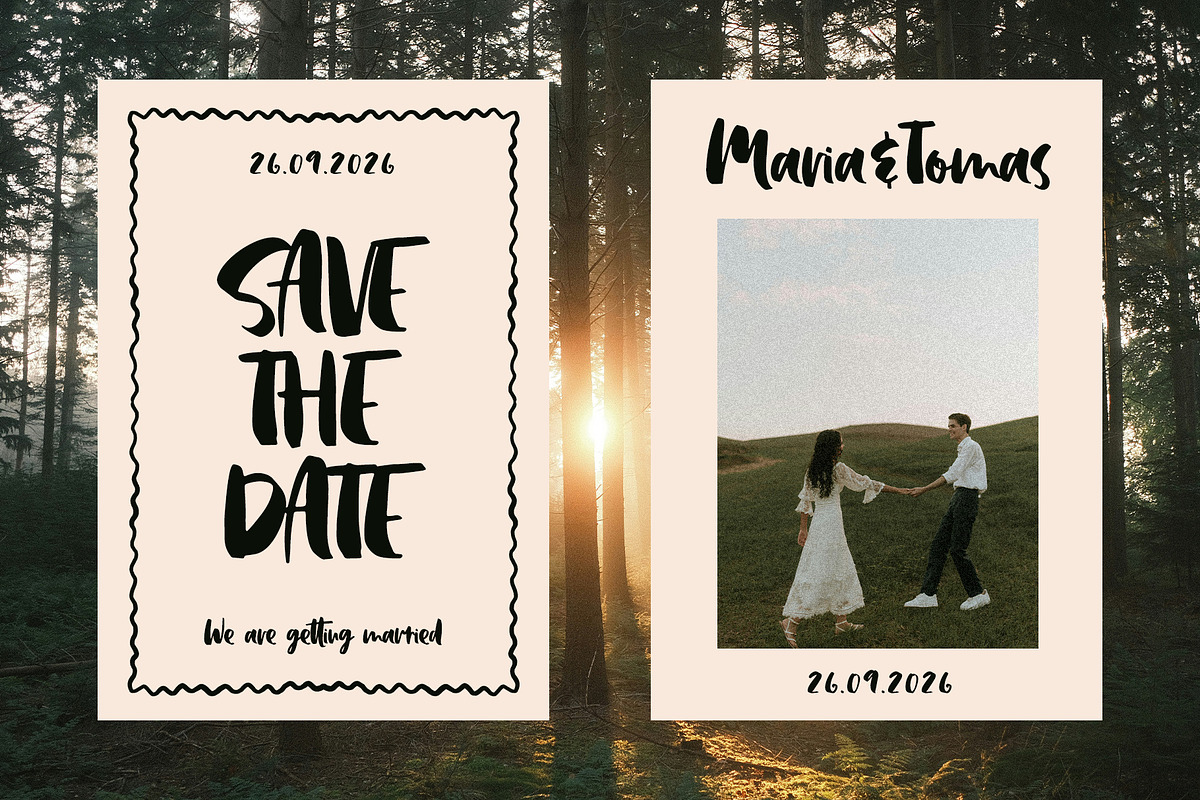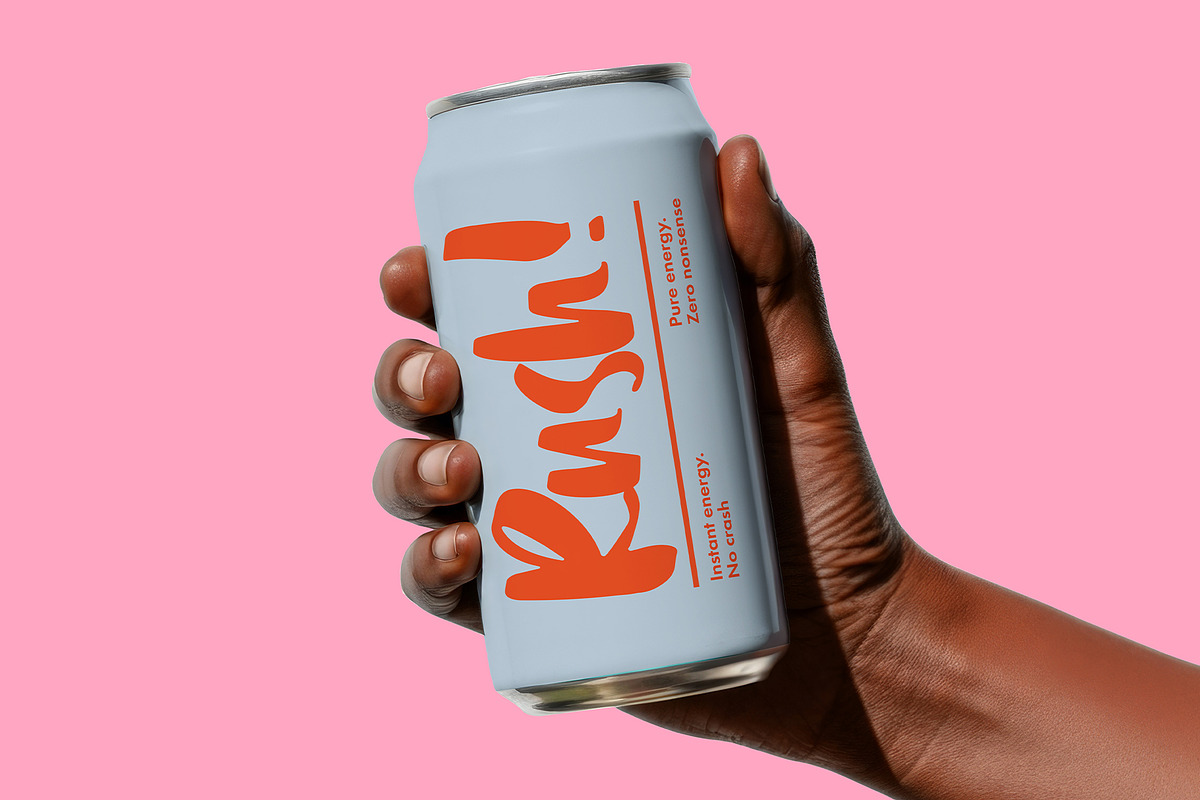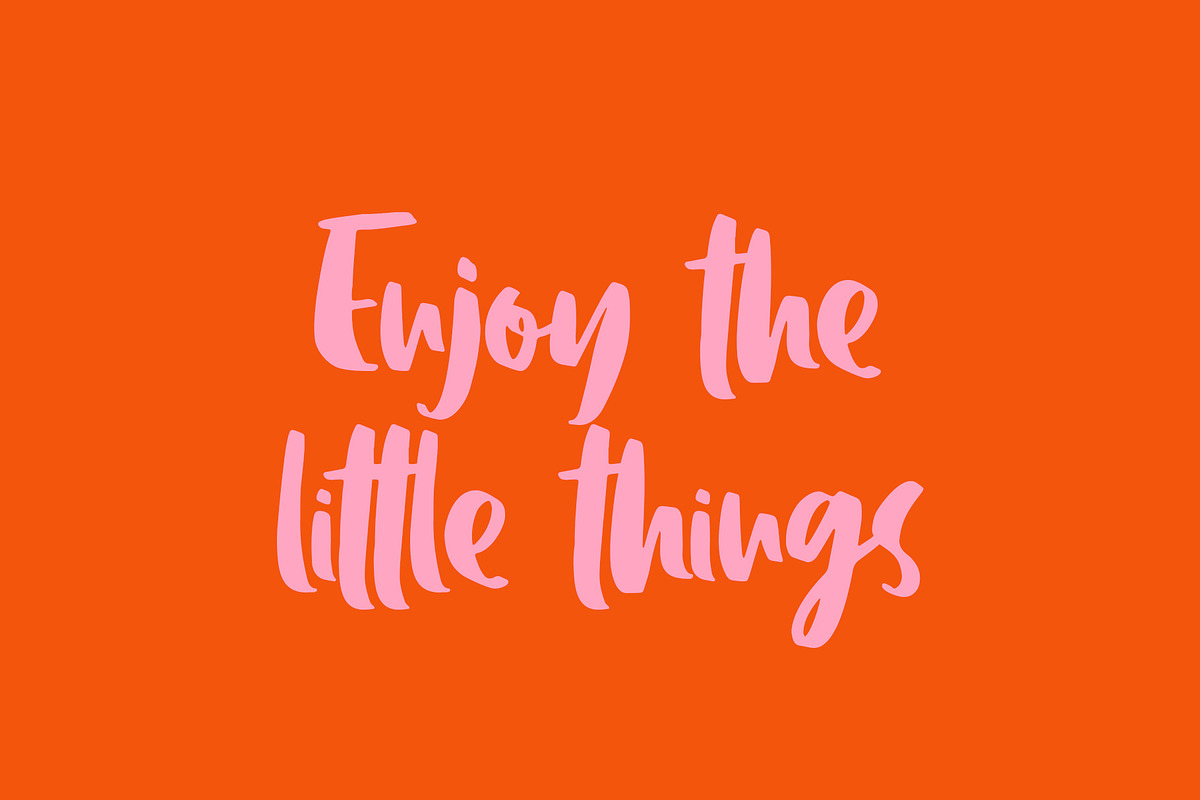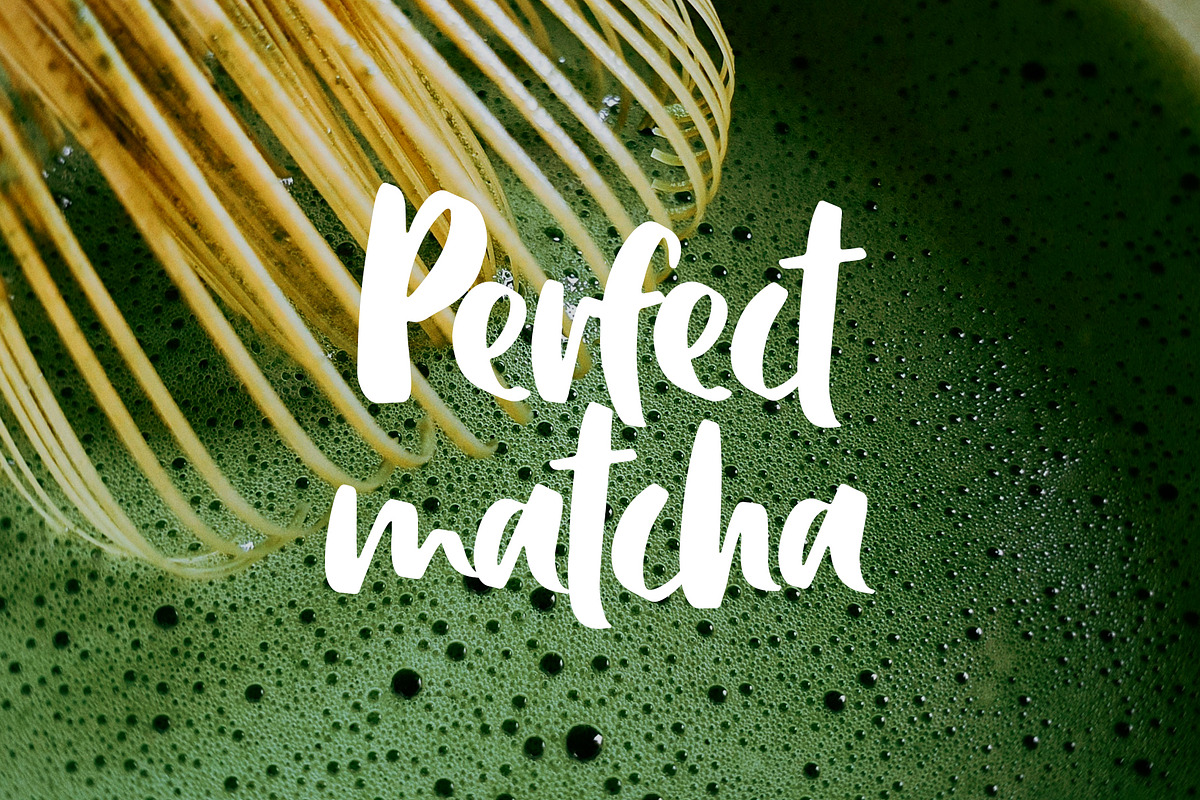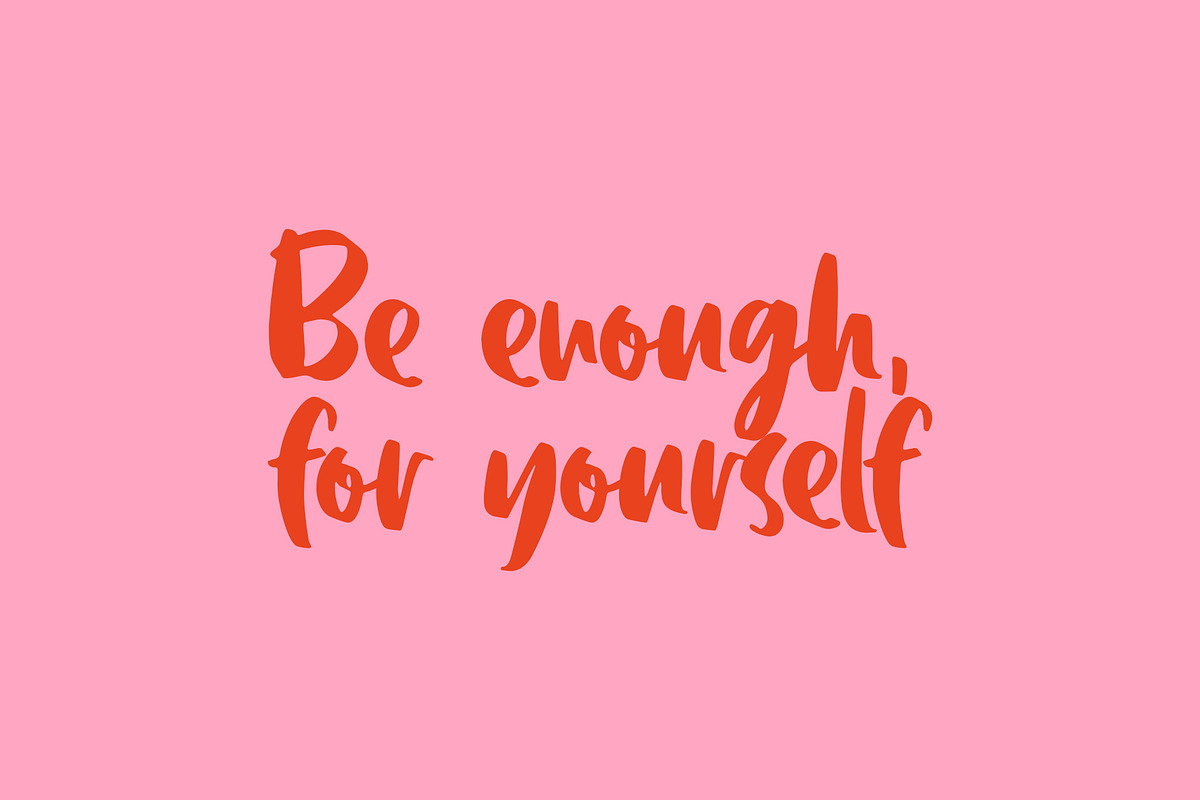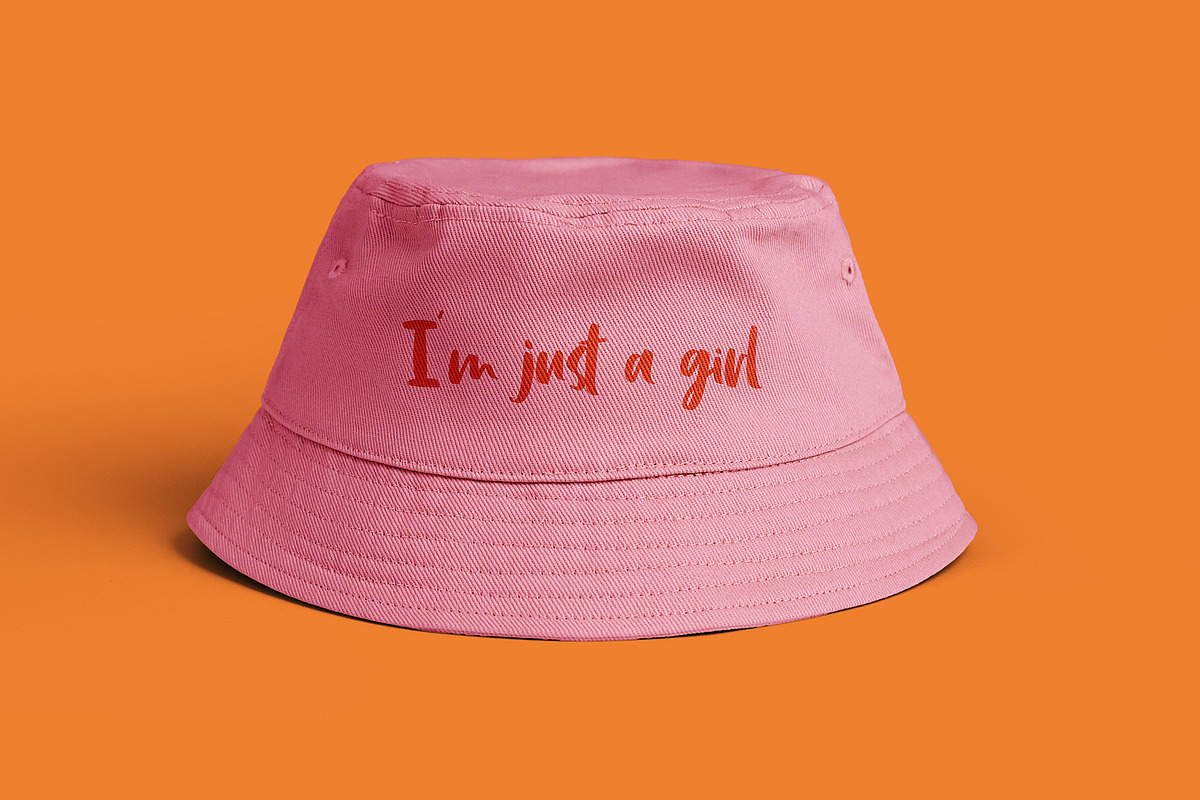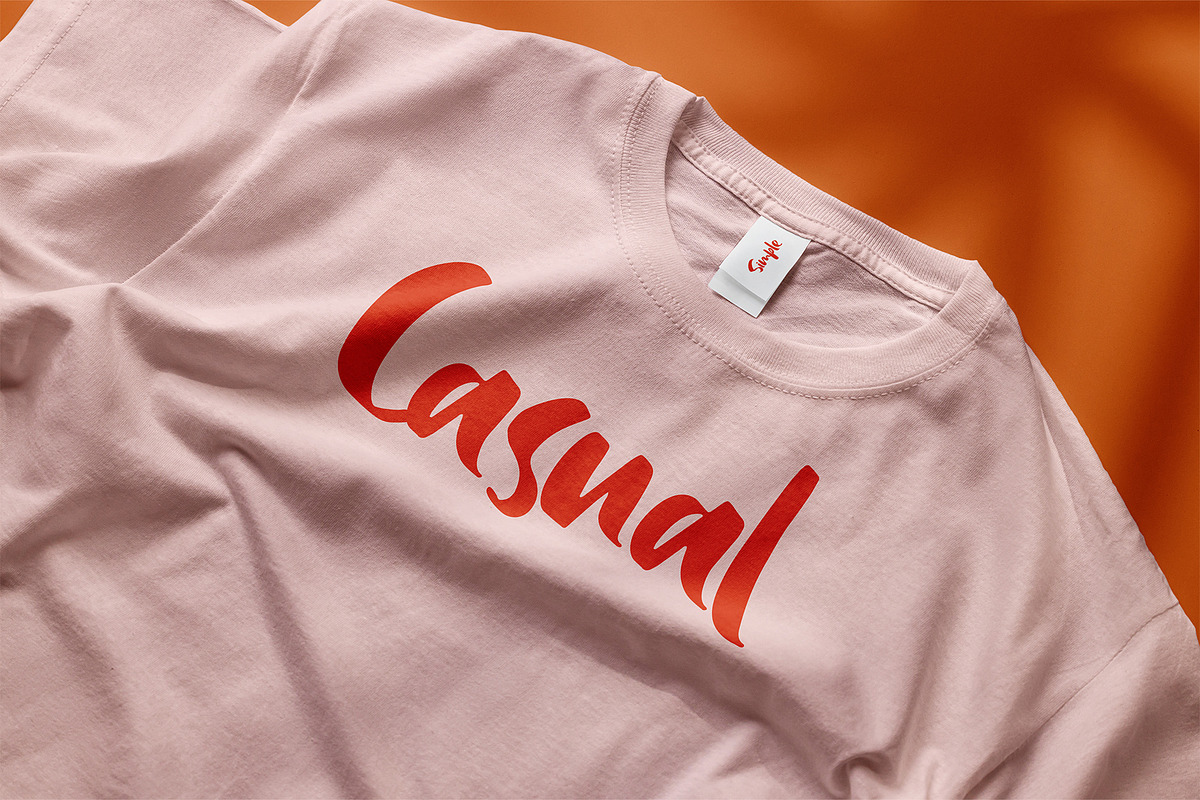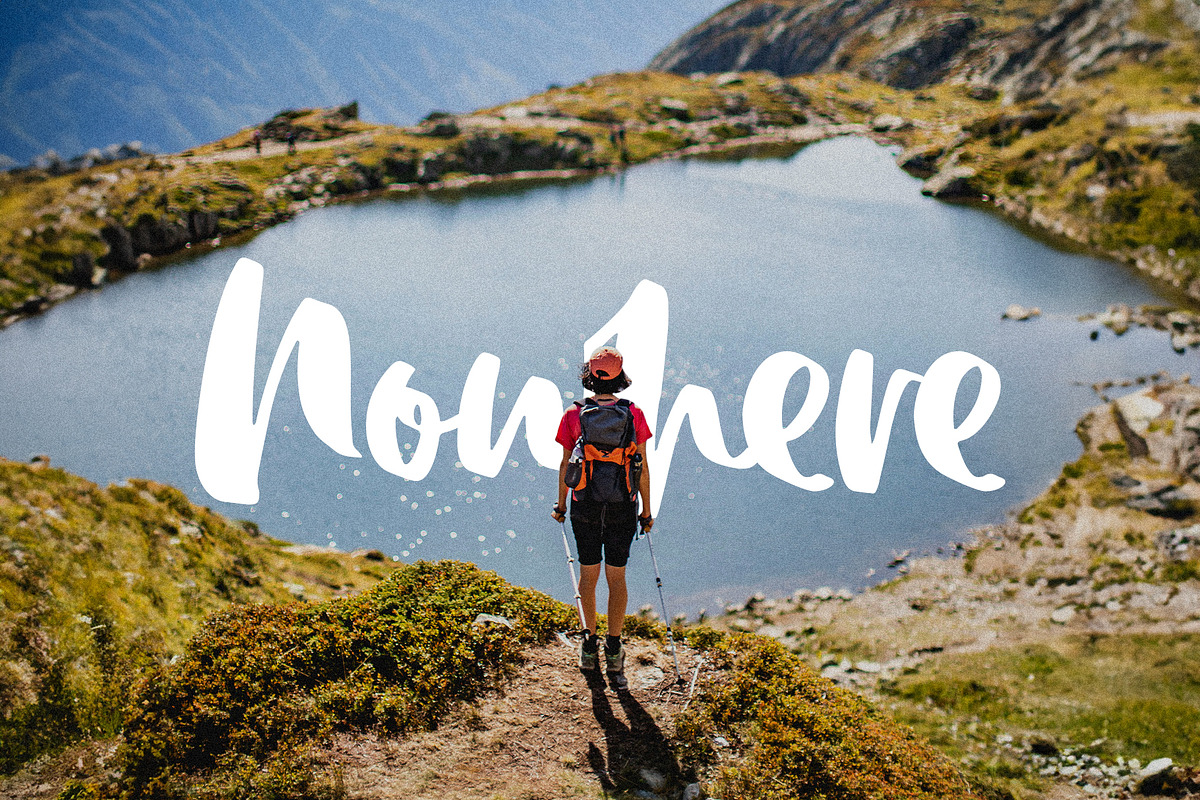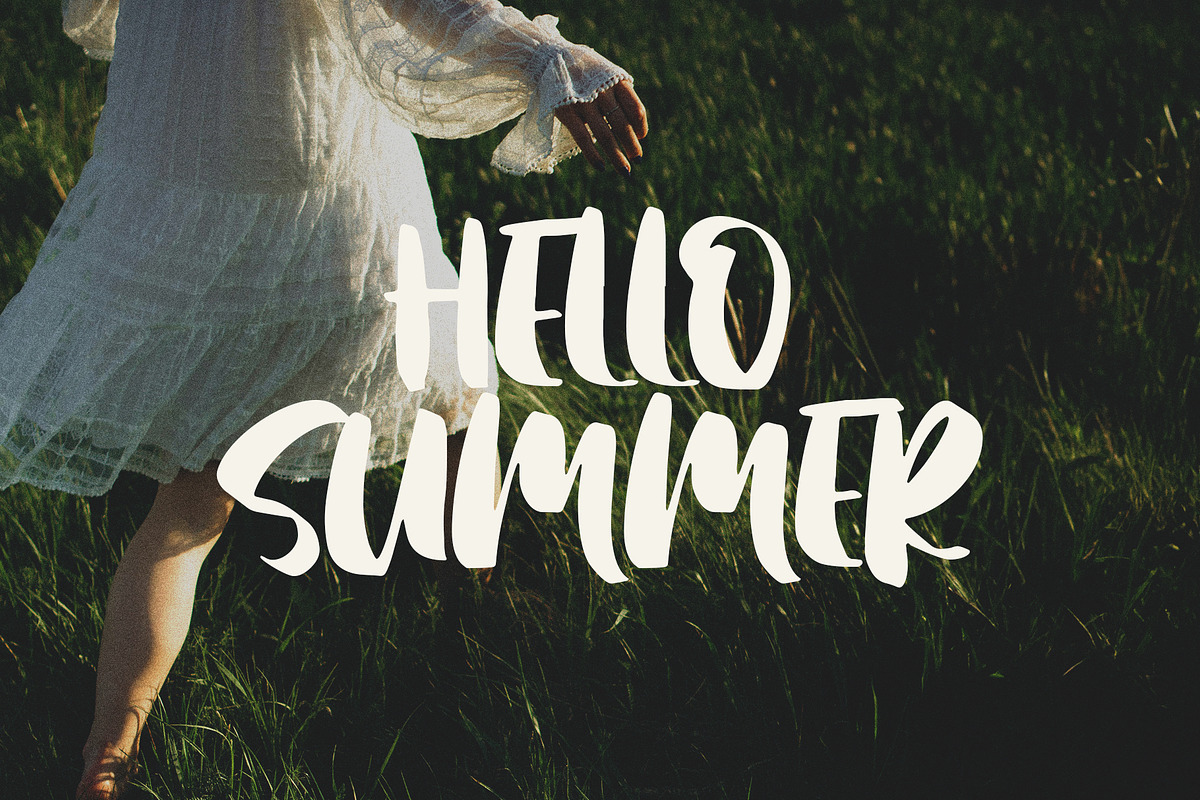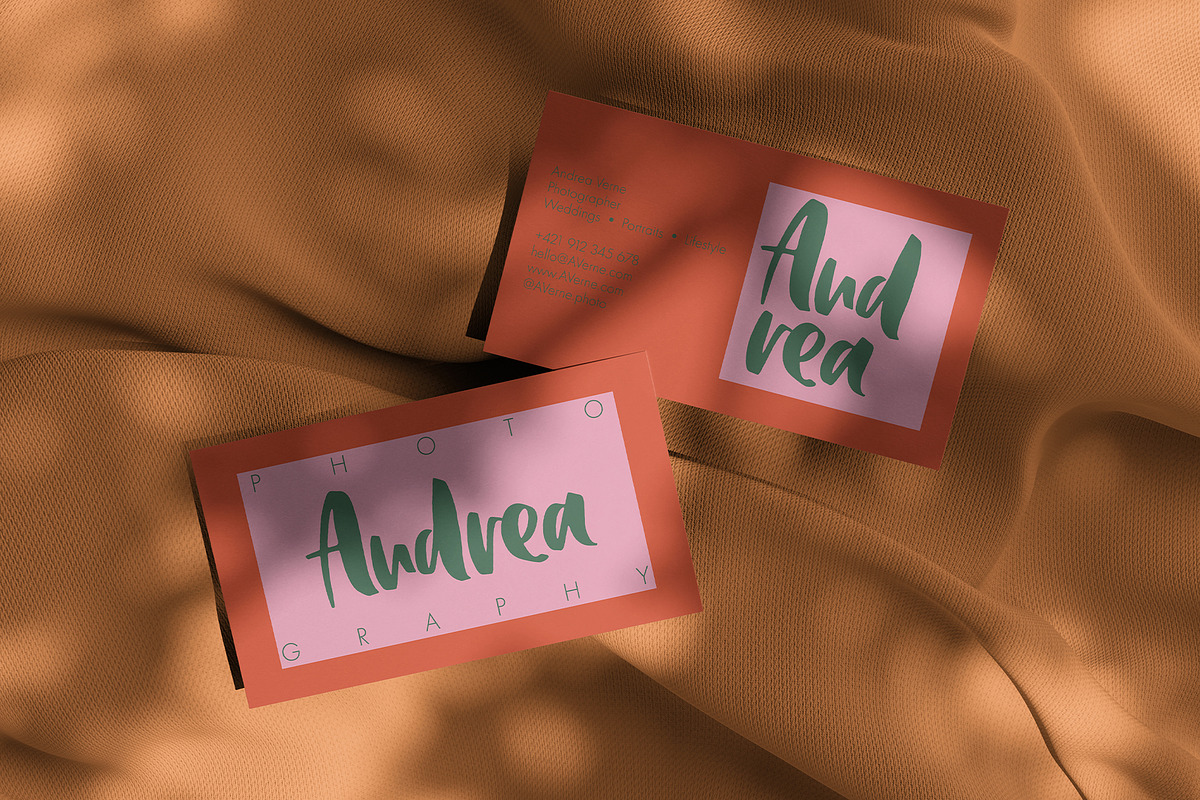
Bailey bold brush font
Bailey bold brush handwritten Font!
Bailey bold brush handwritten font inspired by 80s. Groovy, Funky and Retro vibe! This product was created to help you make your digital images even more beautiful and unique.